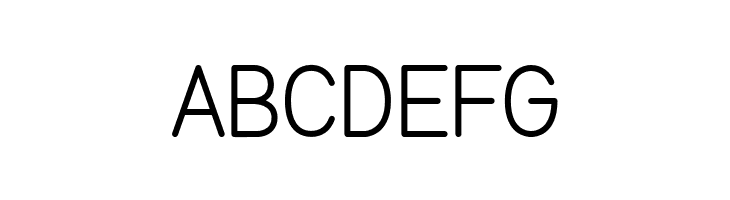
Burd Sans ExtraBold Font
A bold, modern sans-serif font with rounded edges and excellent readability.
Burd Sans ExtraBold Font
A modern, rounded sans-serif font with bold weight and excellent readability.
Burd Sans Font
A modern, rounded sans-serif font with excellent readability.
Burd Sans Font
A modern sans-serif font with rounded edges and uniform strokes.